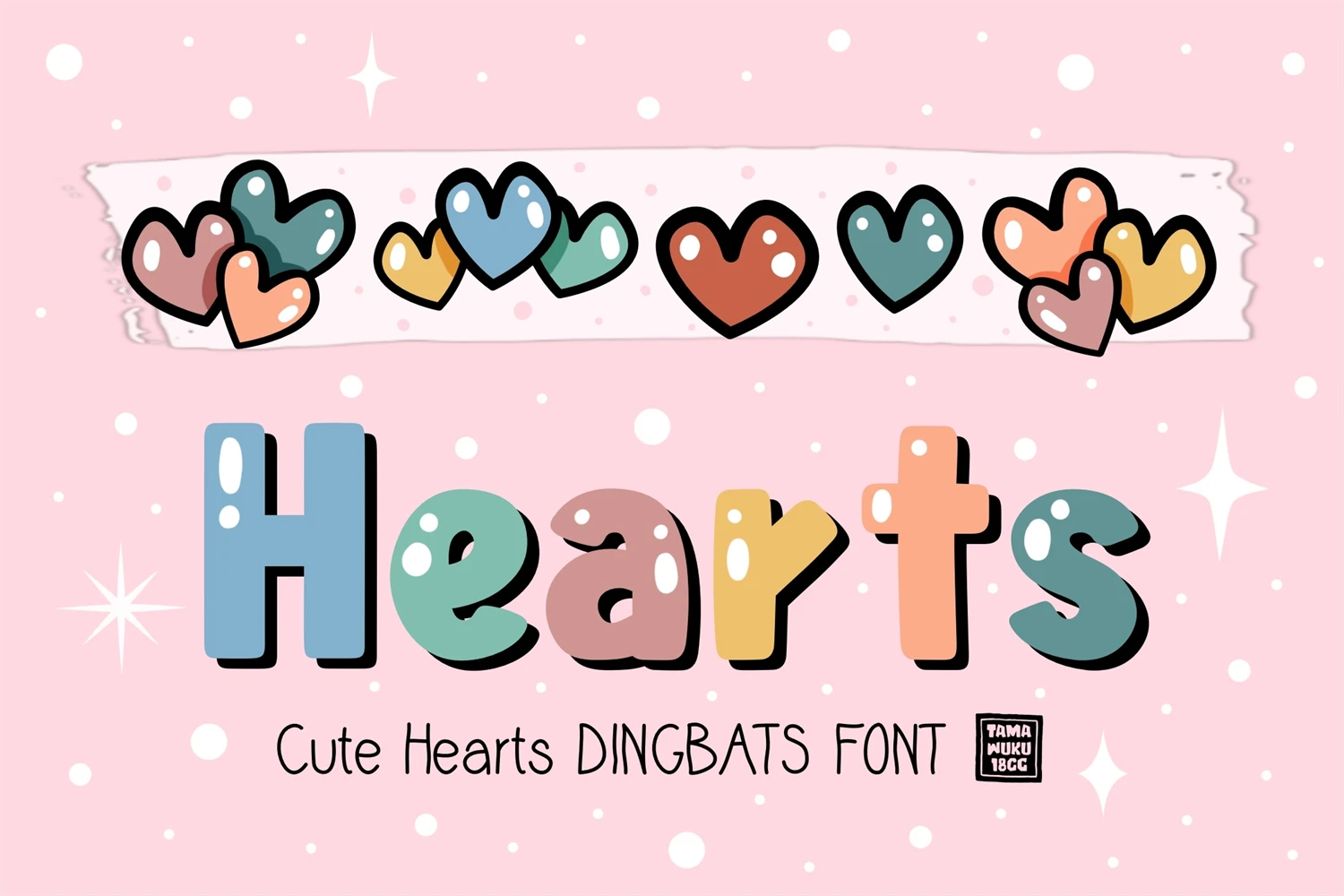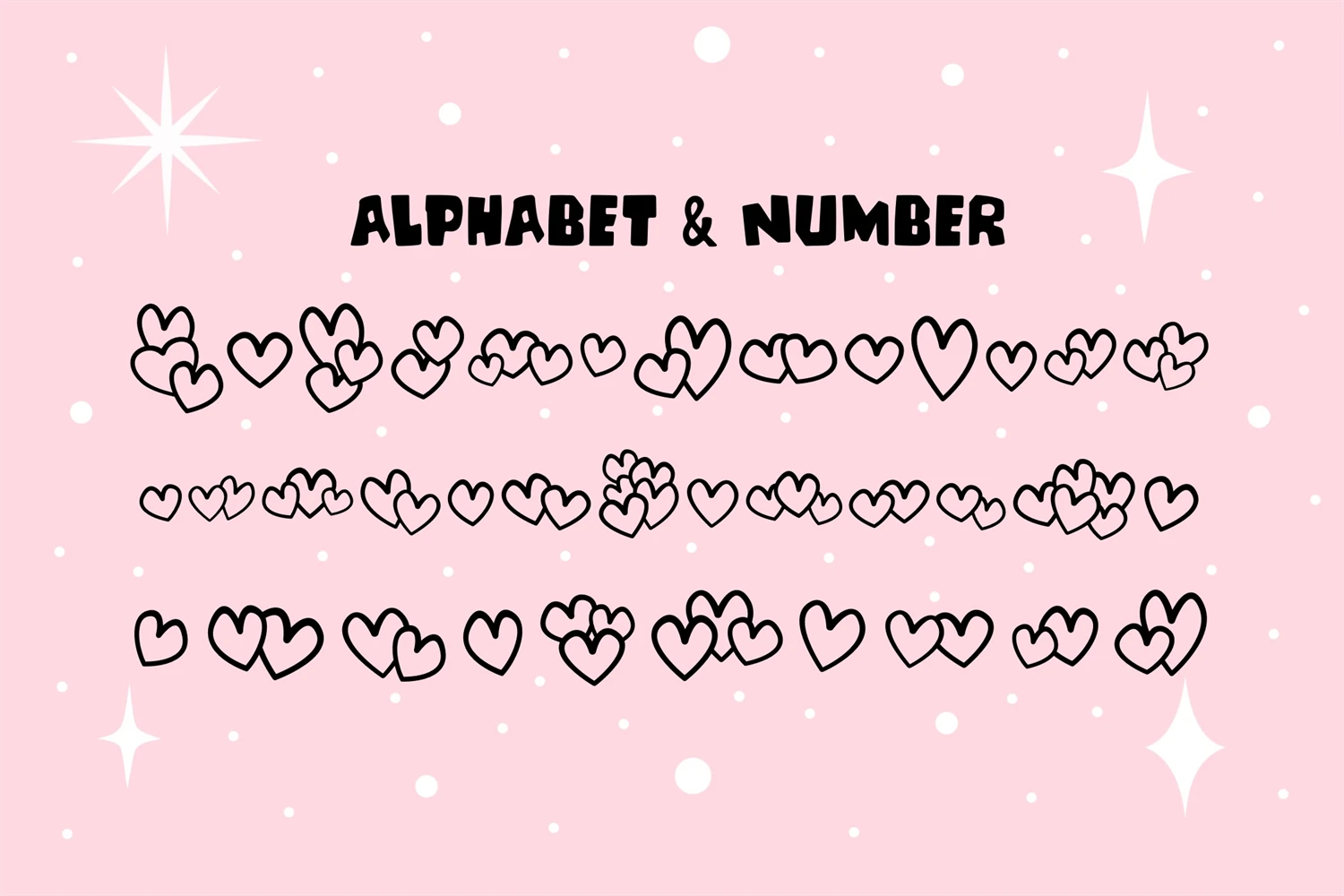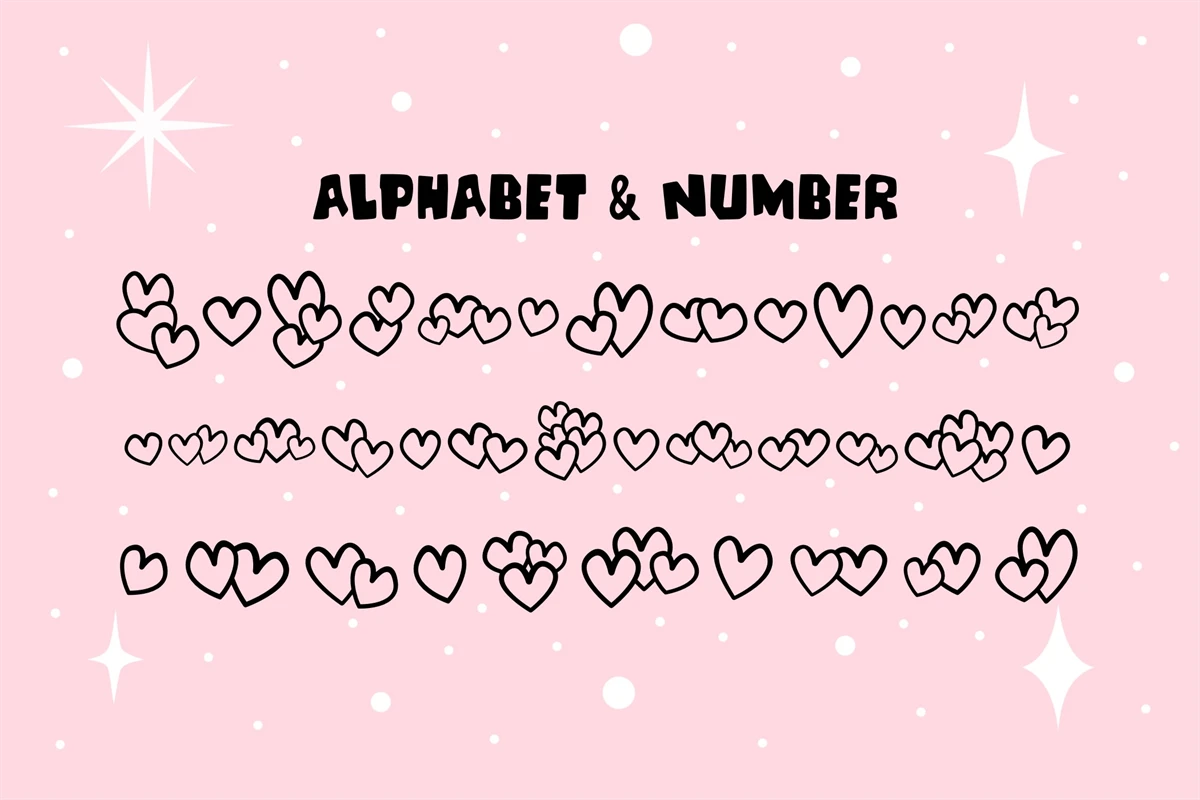
Cute Hearts is a nature dingbats font. This font is the perfect fit for all of your logos, wall art, signs, cards, art prints, t-shirts, coloring page, and much more!